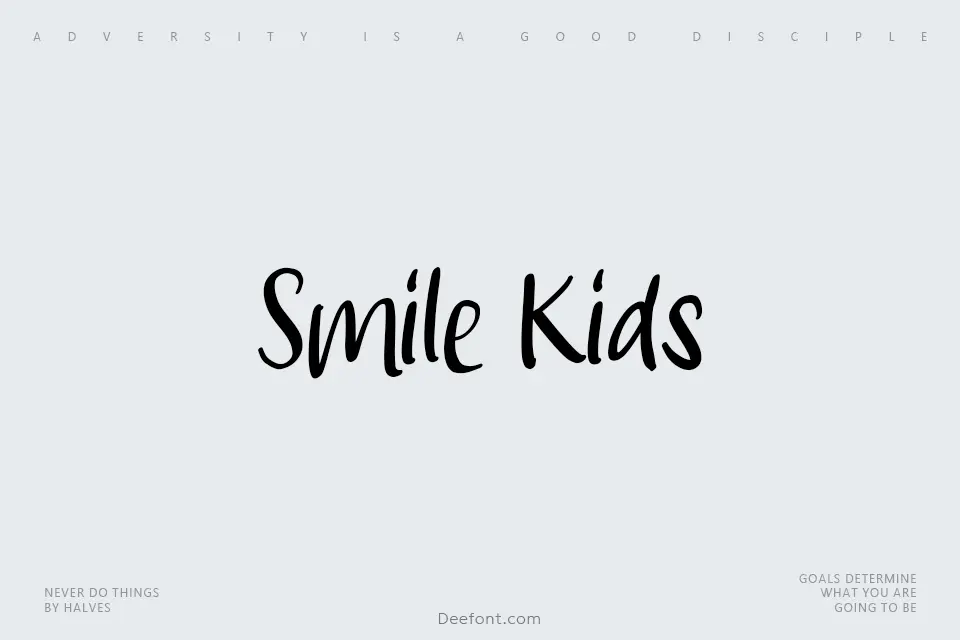
Smile Kids Font
Smile Kids Font is a semi-light handwritten script with rounded, bouncy strokes that feel friendly and energetic. Ideal for children’s books, birthday cards, nursery posters, kid-focused logos and packaging, it keeps letters clear and highly readable. Use it for playful headlines, party invitations and social media graphics whenever you need a warm, kid-friendly touch.